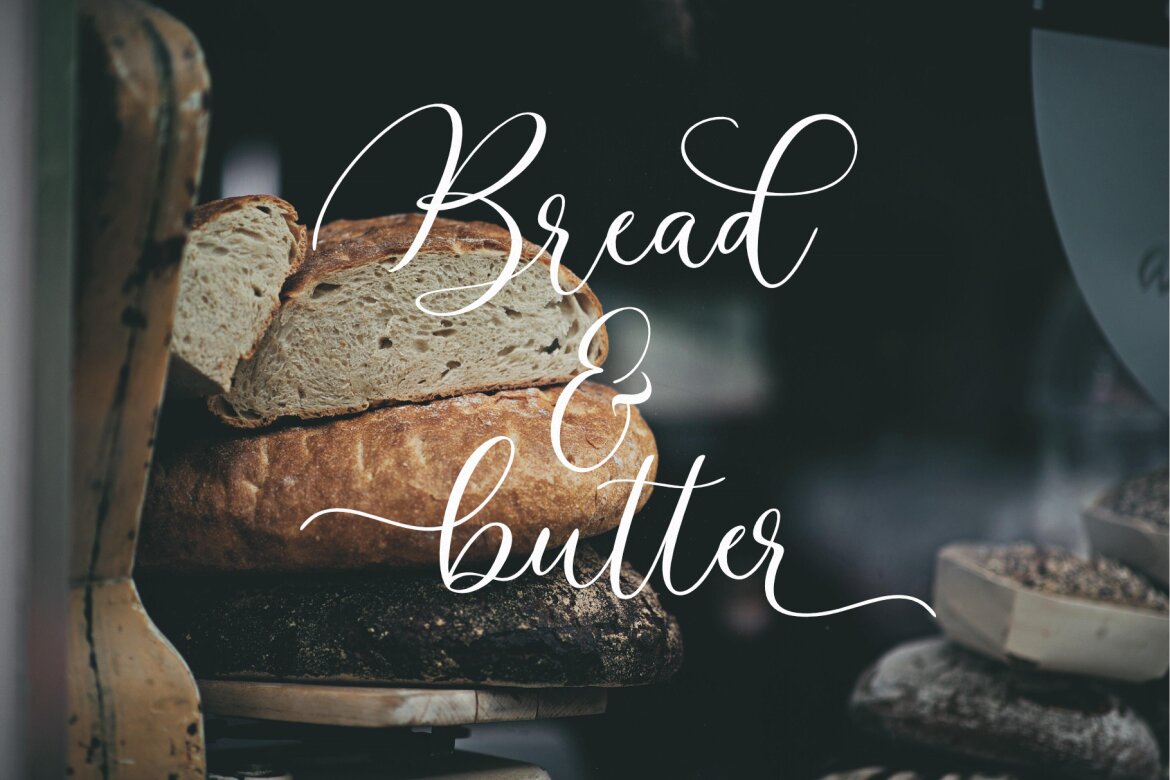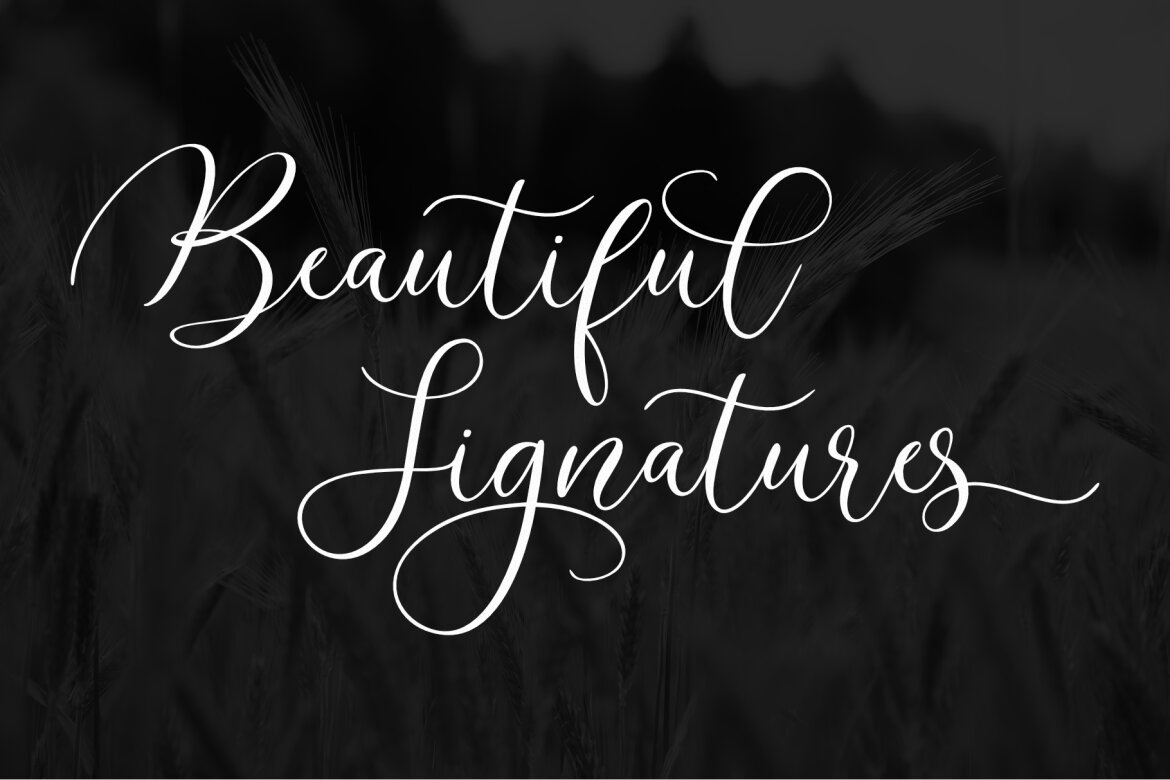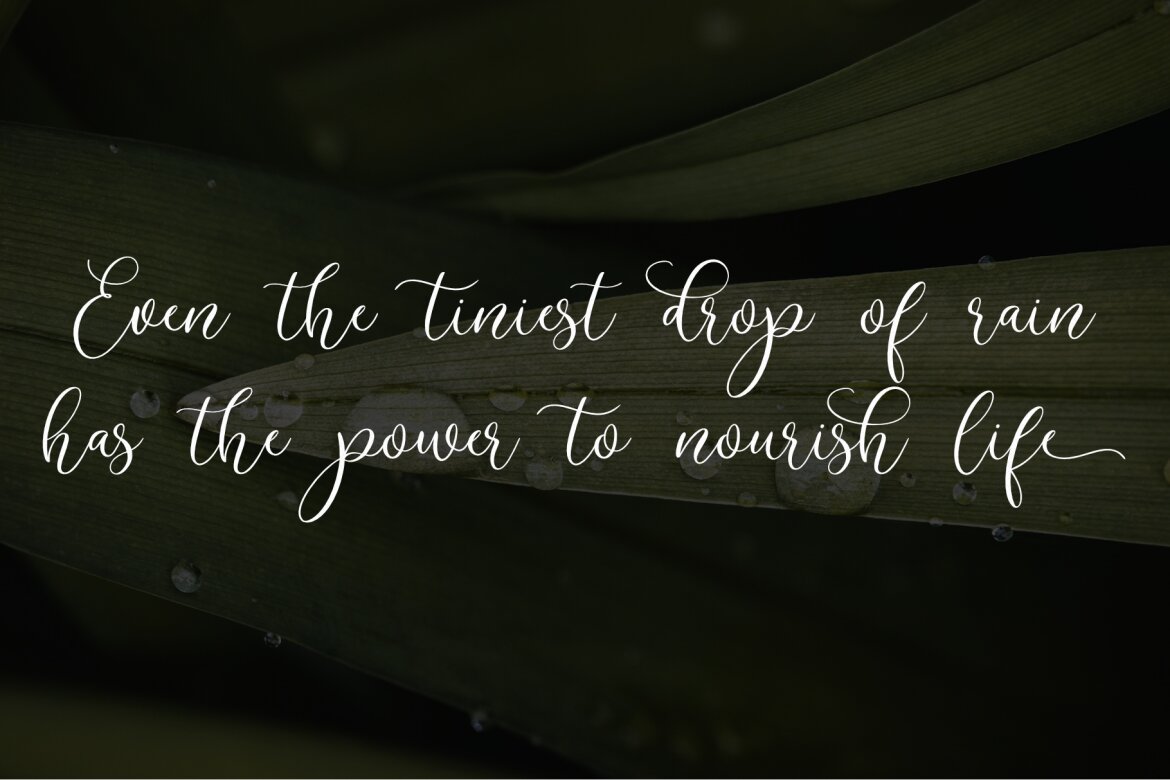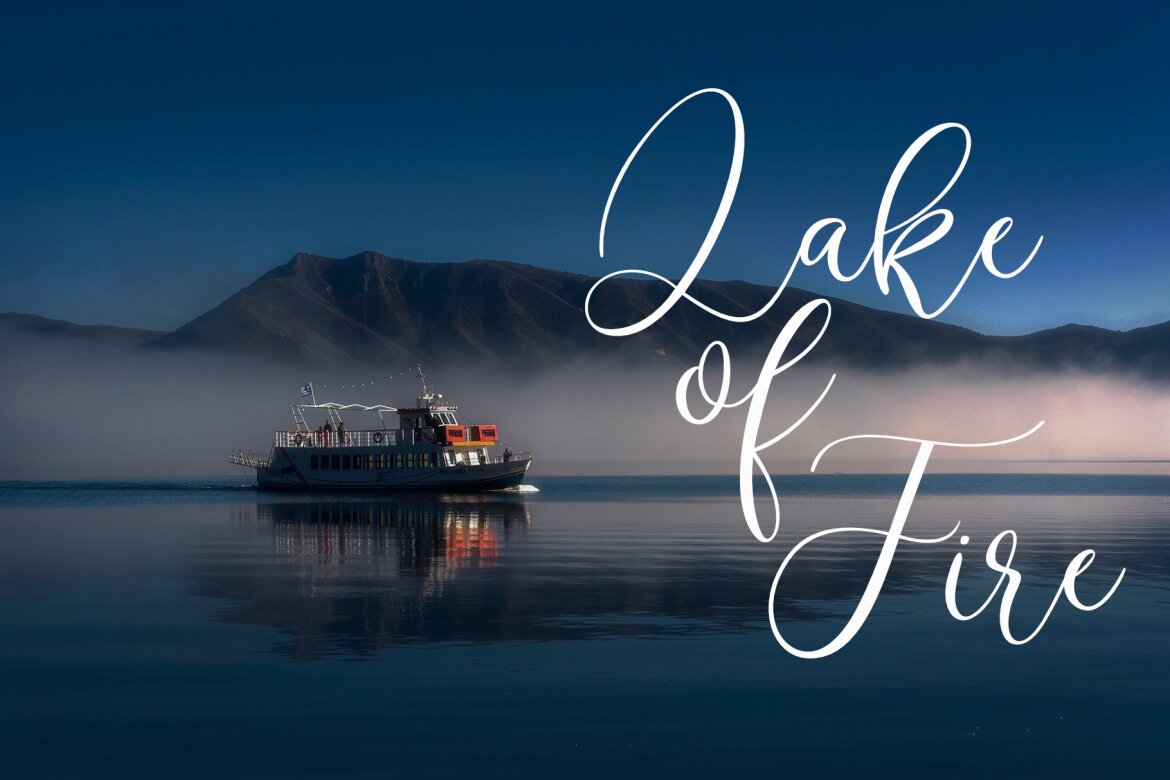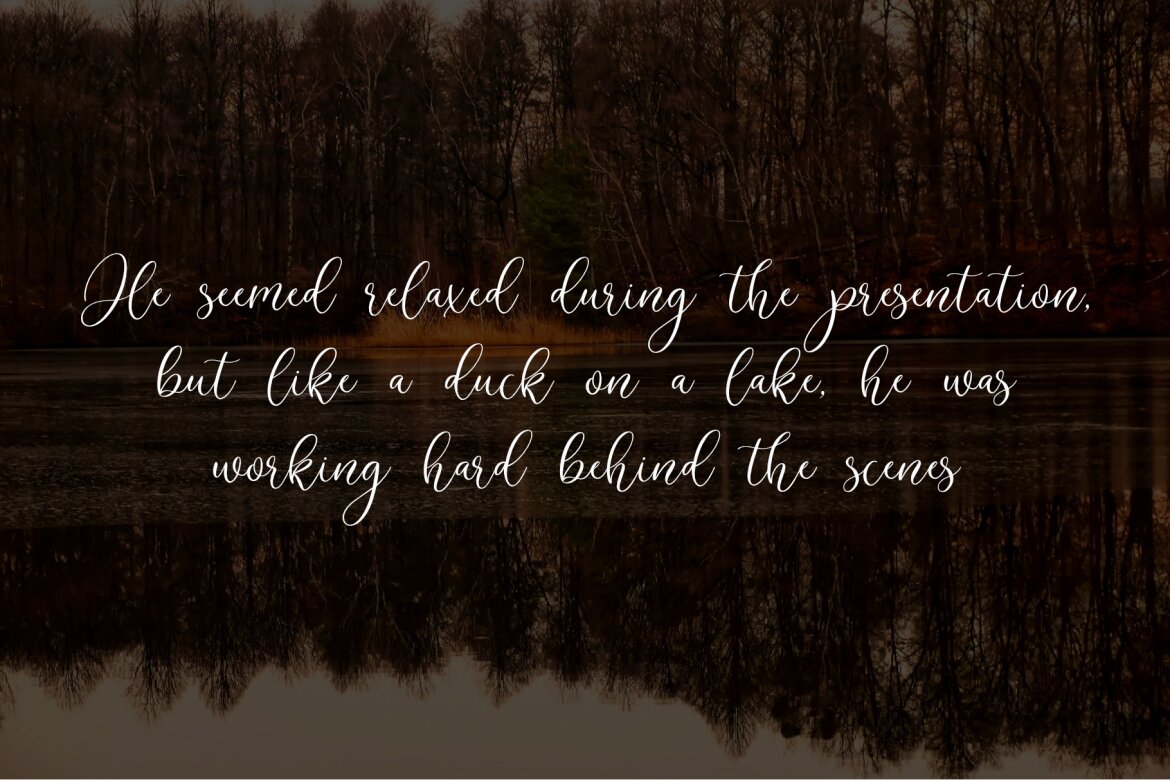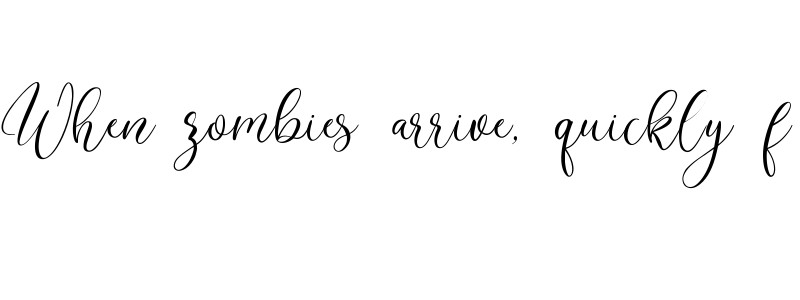
Athlegra FREE Font
Athlegra is a stylish and modern script font that exudes elegance and sophistication. Its fluid strokes and unique flourishes make it perfect for luxury branding, wedding invitations, and fashion design. The font’s graceful curves and smooth lines give any project a high-end and professional look.
• alternate
• ligature
• swash